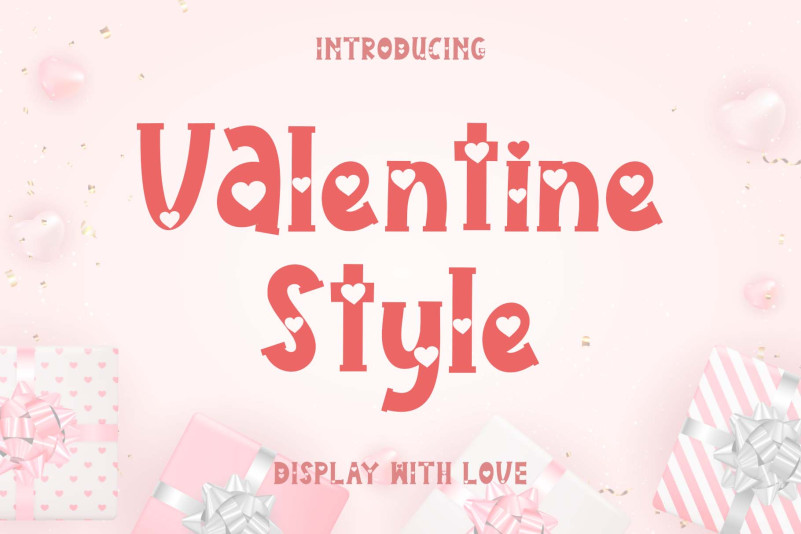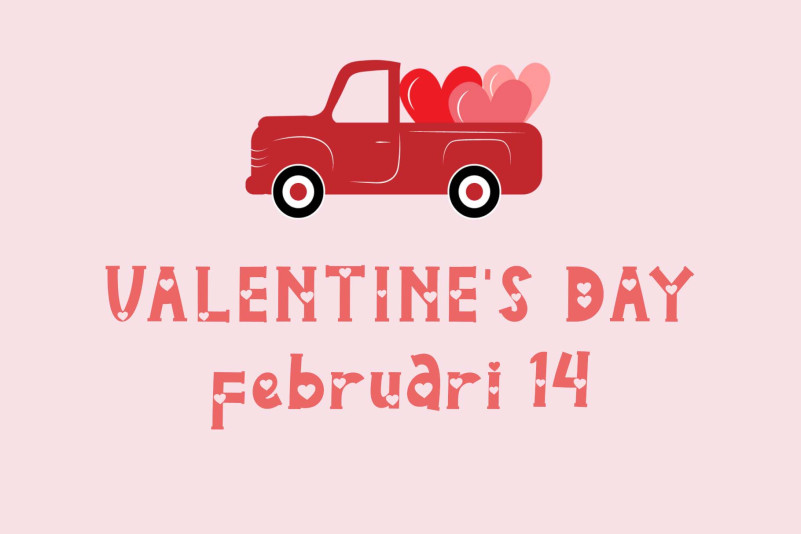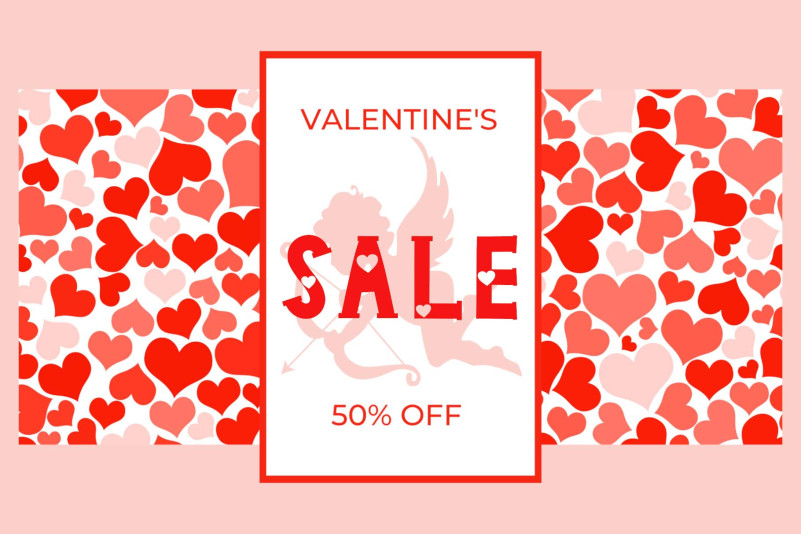
Valentine Style Font
Valentine Style Display Font is a lovely display font decorated with cute little hearts. Whatever the topic, this font will be a wonderful asset to your font library, as it has the potential to enhance any creation.